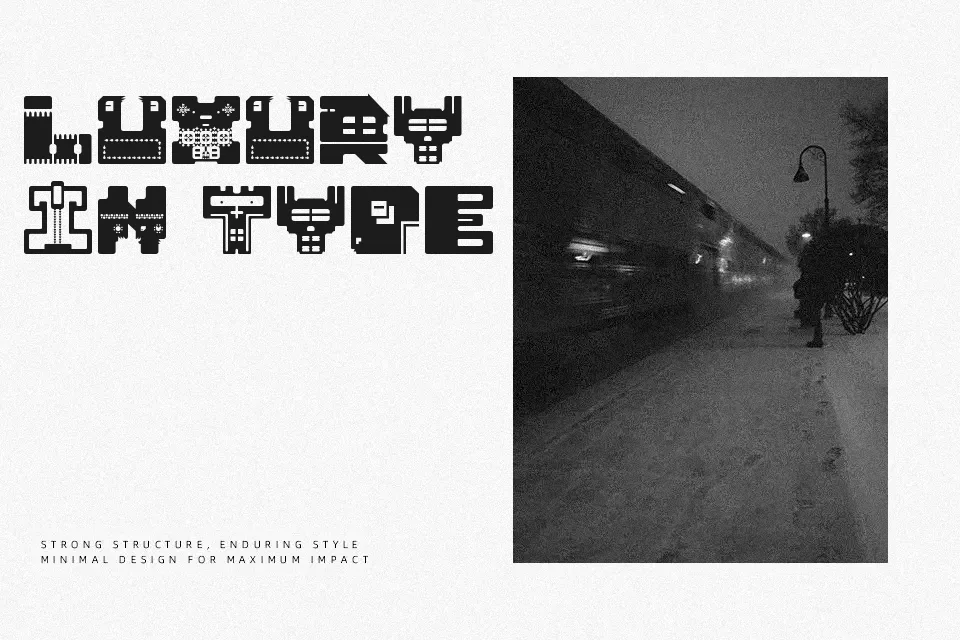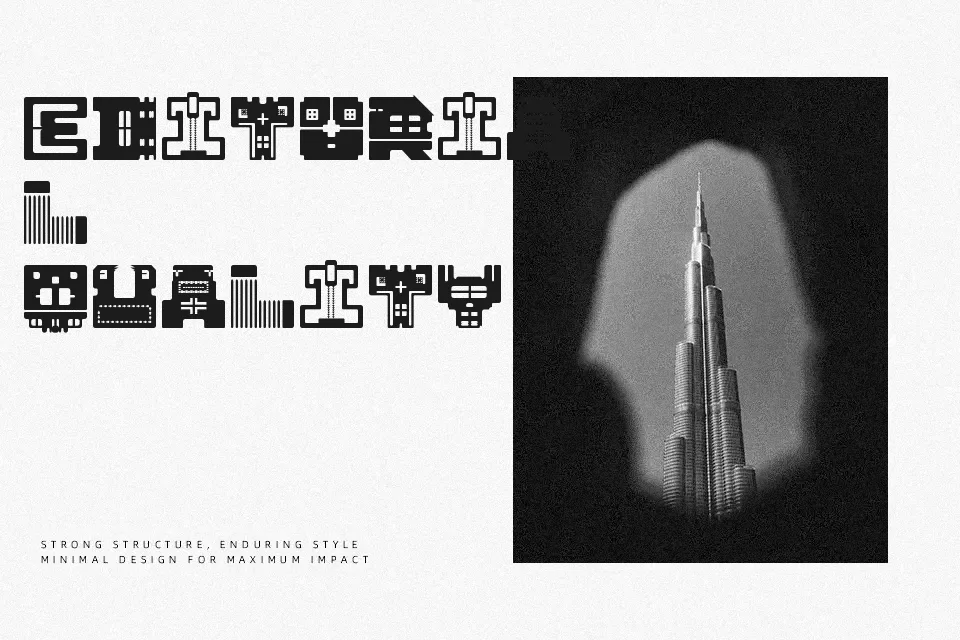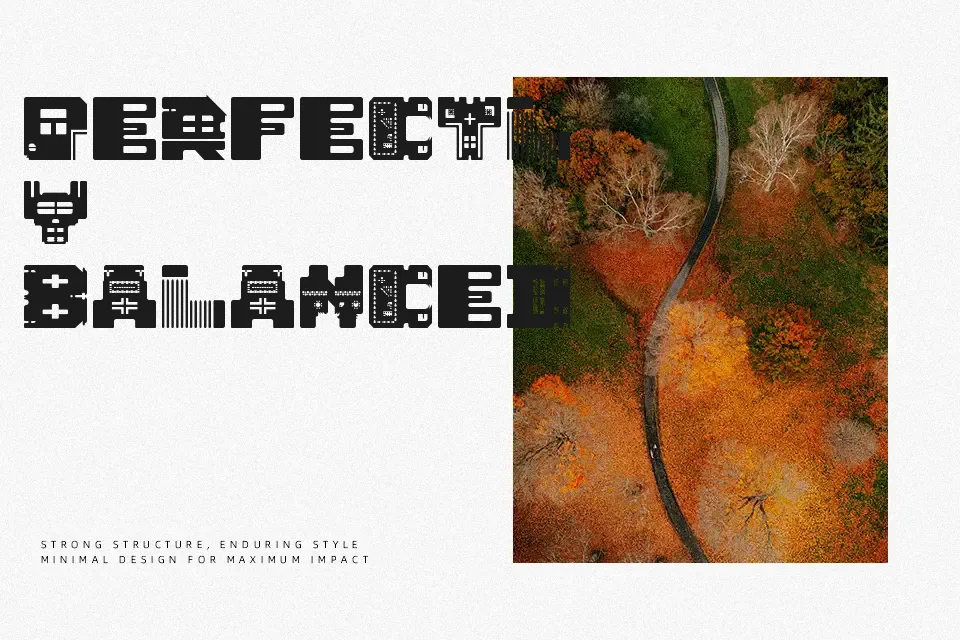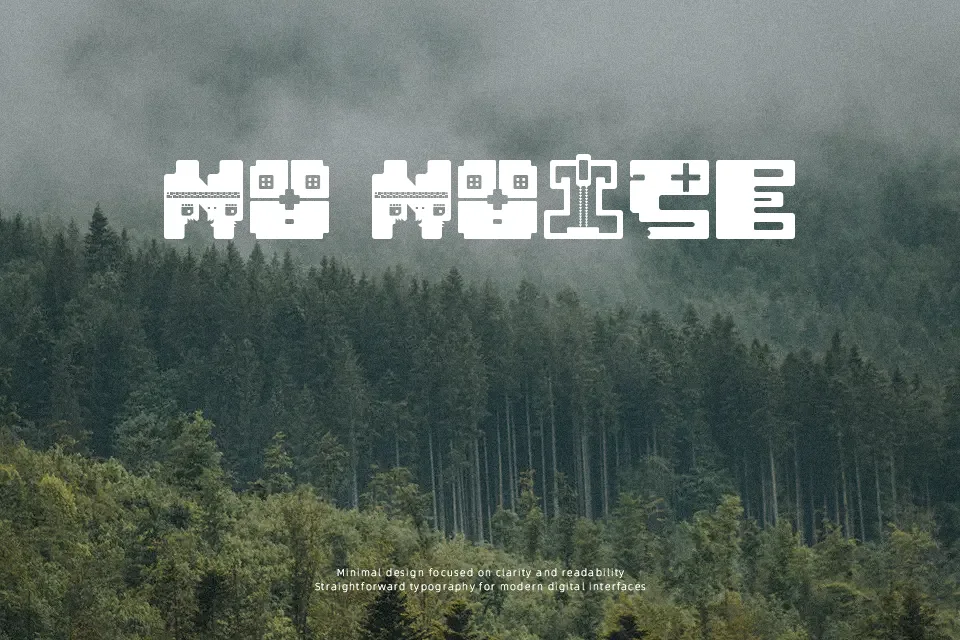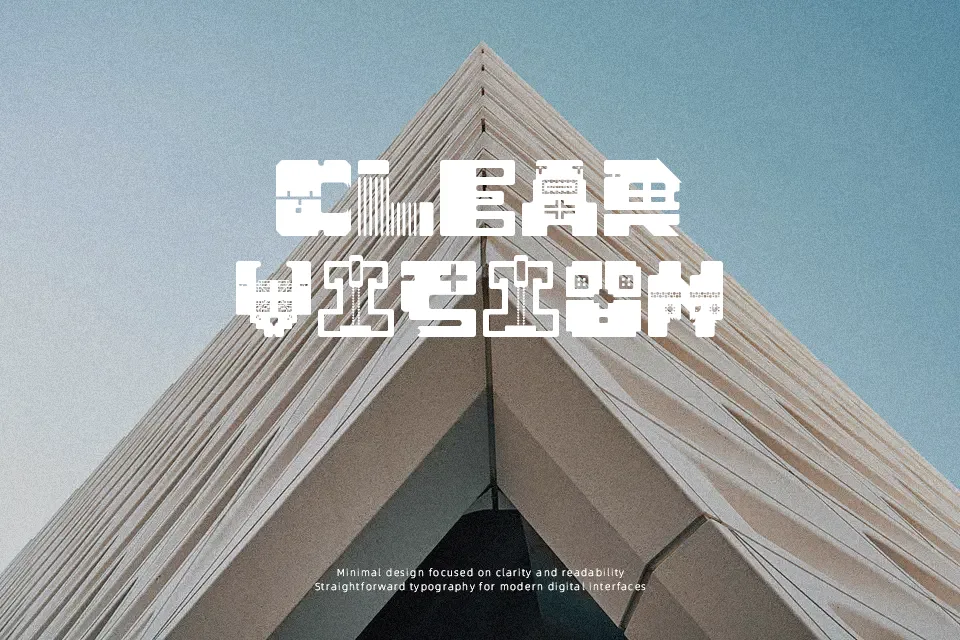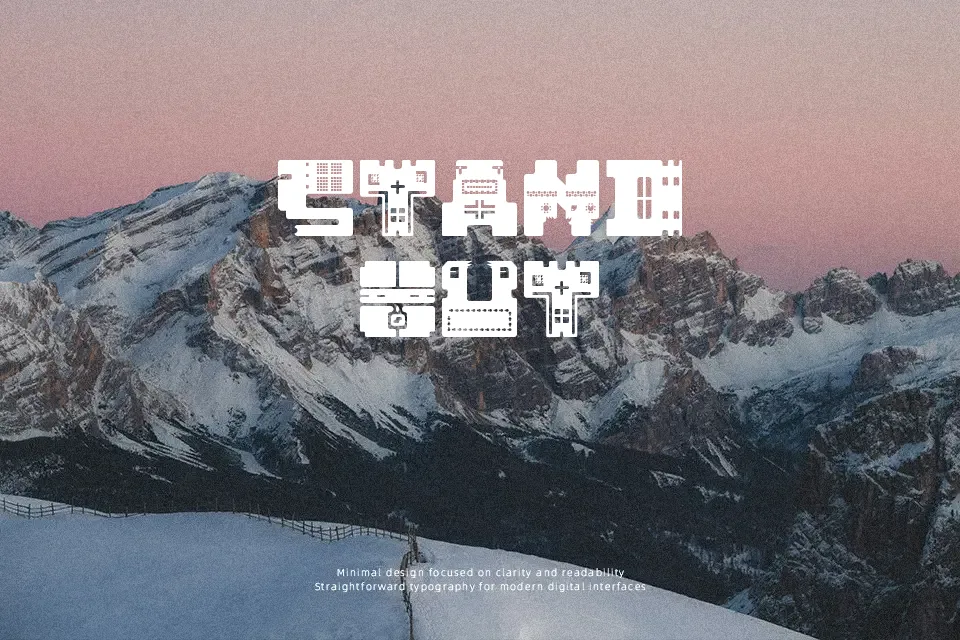
AFT1 Heterodoxa Font
The letterforms in AFT1 Heterodoxa carry dense, ornate inner structures — each glyph feels architecturally complex, with layered detailing that rewards large-scale rendering. It sits firmly in experimental decorative territory, leaning away from conventional type conventions toward something closer to illustration. The font works well for editorial art direction, exhibition titles, or unconventional music project branding where the visual weight of each character is intentional. That intricacy, however, becomes a liability at small sizes — fine inner details collapse and legibility suffers quickly. Anyone expecting clean, versatile text performance will find this font resists that role entirely. Best treated as a headline-only instrument used sparingly with intentional white space around it.
– Art exhibition or gallery title treatments
– Experimental music or album artwork headers
– Editorial feature spreads with large headline type
– Poster designs where typographic form doubles as visual art
– Body text or any reading-length copy
– Digital UI labels, buttons, or navigation elements
– Corporate identity requiring legibility at multiple sizes
– Print materials with tight spacing or small type environments
Perfect for advertising, branding, and editorial, with a artistic and decorative style.